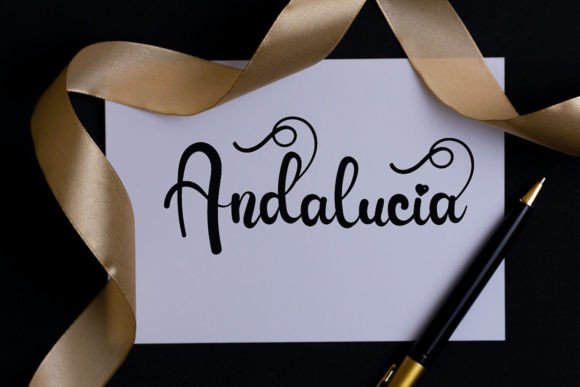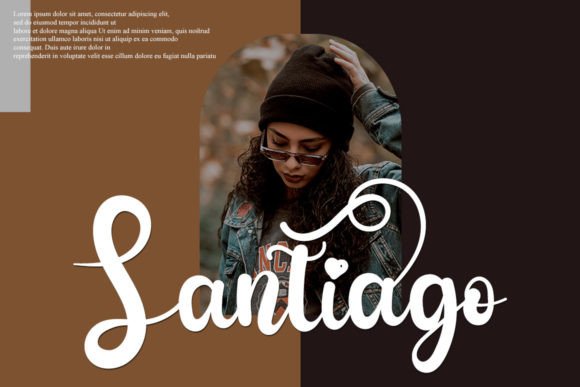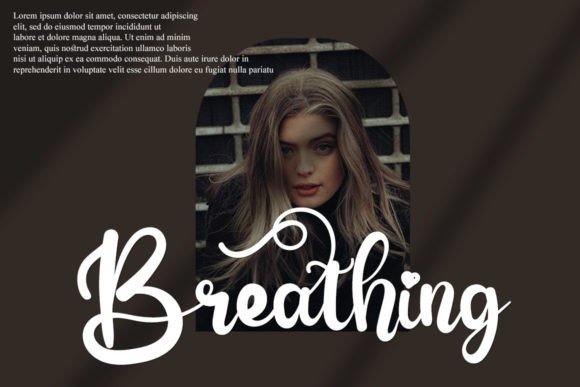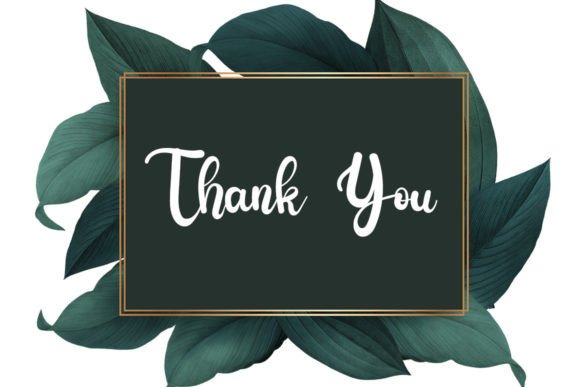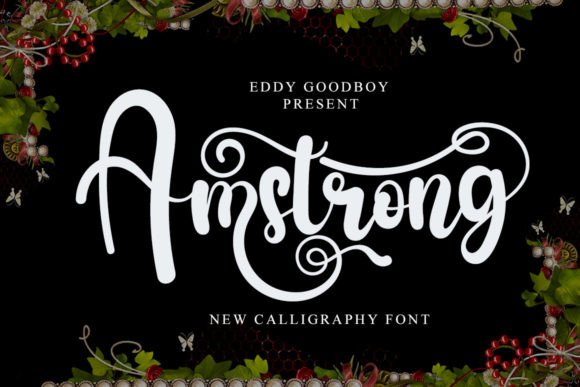
Discover the Charm of Amstrong Font: Elevate Your Designs with Elegance and Joy
Are you on the hunt for a font that embodies the perfect blend of freshness, cleanliness, and elegance? Look no further than the Amstrong Font. This beautiful and sweet font is making waves in the design community, and for good reason. Its unique charm and versatility make it an ideal choice for a wide range of projects, from formal presentations to informal crafts.
The Characteristics of Amstrong Font
Amstrong Font is characterized by its clean lines, elegant curves, and a fresh feel that is hard to resist. It’s a font that exudes a sense of joy and positivity, making it perfect for designs that aim to uplift and inspire. Whether you’re working on a logo, a brochure, or a social media post, Amstrong Font is sure to add a touch of sophistication and whimsy to your work.
Why Choose Amstrong Font?
So, what sets Amstrong Font apart from other fonts out there? Here are just a few reasons why designers and crafters are falling in love with this beautiful font:
- Versatility: Amstrong Font is incredibly versatile, making it suitable for a wide range of projects, from formal to informal. Whether you’re designing a business card or a party invitation, this font will help you create a stunning visual impact.
- Elegance: With its clean lines and elegant curves, Amstrong Font adds a touch of sophistication to any design. It’s perfect for designers who want to create a professional look without sacrificing creativity.
- Joyful Touch: Amstrong Font has a unique ability to add a joyful touch to your designs. Its fresh and playful feel makes it perfect for projects that require a bit of whimsy and personality.
How to Use Amstrong Font in Your Designs
Amstrong Font is incredibly easy to use, even for those who are new to design. Here are a few tips to help you get started:
- Pair it with other fonts: Amstrong Font pairs well with a variety of other fonts, making it easy to create a unique and visually appealing design. Try pairing it with a bold font for a striking contrast.
- Experiment with colors: Amstrong Font looks great in a range of colors, from bold and bright to soft and pastel. Don’t be afraid to experiment with different colors to find the perfect look for your design.
- Play with sizes: Amstrong Font is just as effective in large sizes as it is in small sizes. Play around with different font sizes to create visual interest and hierarchy in your design.
Amstrong Font in the World of Design
Amstrong Font is quickly becoming a favorite among designers and crafters. Its unique blend of elegance and playfulness makes it perfect for a wide range of design applications, from branding and advertising to crafting and DIY projects.
Whether you’re a professional designer or a crafty hobbyist, Amstrong Font is sure to inspire your creativity and take your designs to the next level. So why not give it a try and see the magic for yourself?
In conclusion, Amstrong Font is a beautiful and sweet font that is sure to capture your heart. Its fresh, clean, and elegant design makes it perfect for a wide range of projects, from formal to informal. With its versatility, elegance, and joyful touch, Amstrong Font is an ideal choice for designers and crafters who want to create stunning visual impacts.